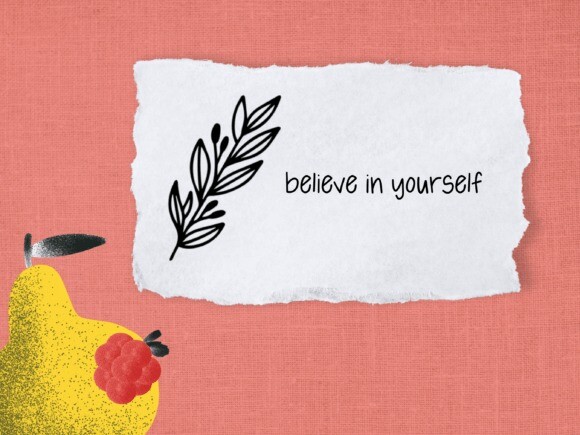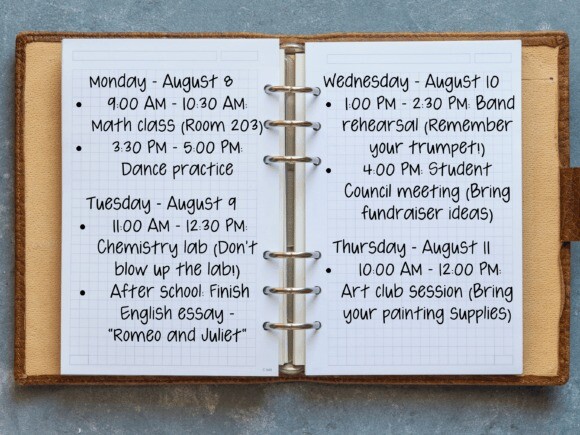
Pearberry Font
Pearberry Font is a childish, easy-to-read handwritten font that conveys impeccable friendliness. Whether you’re using it for crafts, digital design, presentations, or making greeting cards, this font has the potential to become your favorite go-to font, no matter the occasion